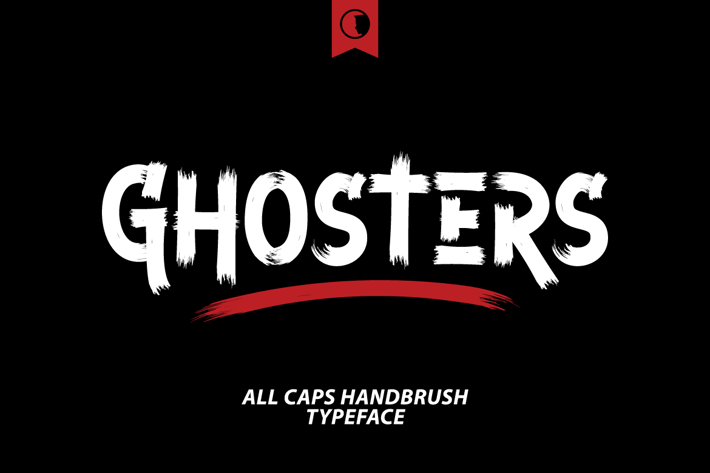
Ghosters Handbrush Font
Ghosters is a Modern Hand Brush Font, a Street Brush Font Full of Energy.
With extra attention to quick strokes and sharp details. Each character is carefully brushed so that the texture becomes real.
- Uppercase & Lowercase Letters
- Punctuation & Symbols Support
- PUA encoded Range Standard Alternative Style
- Ligature (Standard and Discretionary)